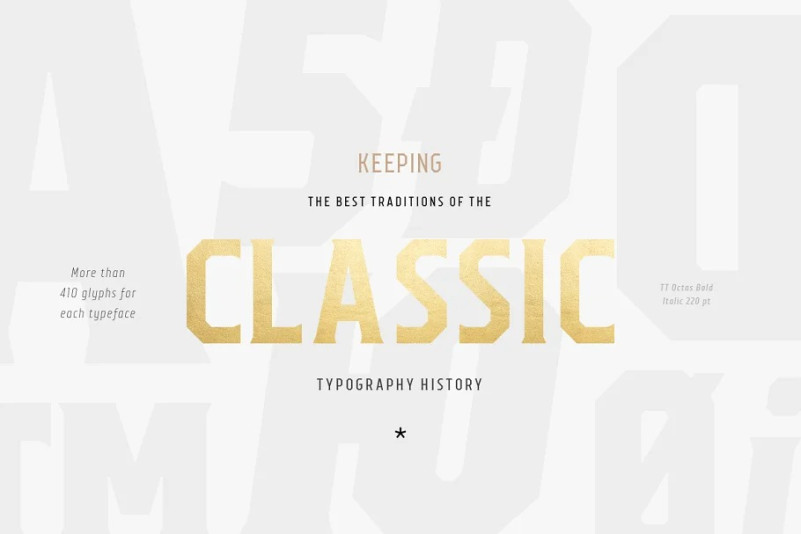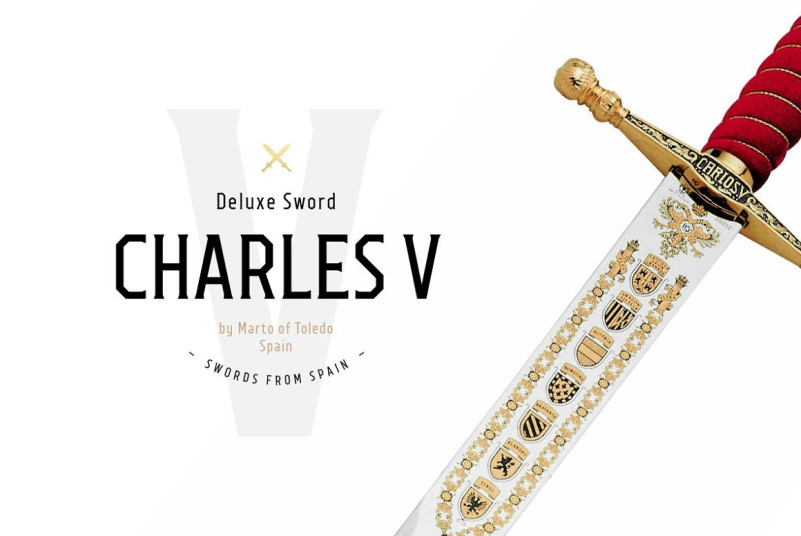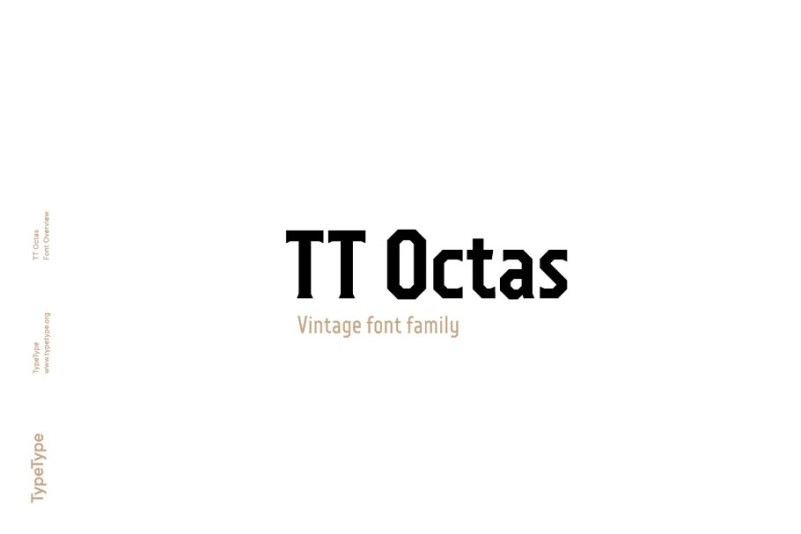
TT Octas Font
TT Octas Vintage Font is a narrowly proportioned font family built upon the principle of octagonal forms: all circles in this font family are actually octagons. Thanks to small serifs, TT Octas has a saturated and vintage character to it. Simple depiction of the letters and the serifs make the family easily readable even in the smallest sizes.